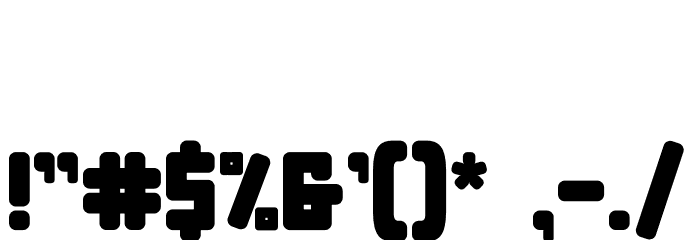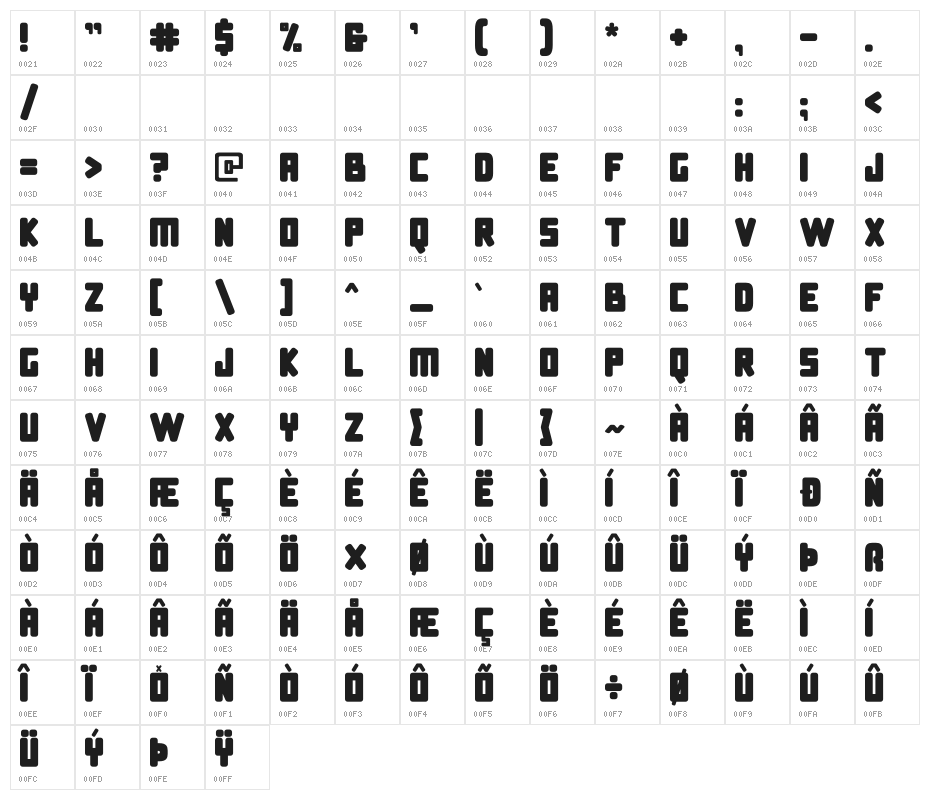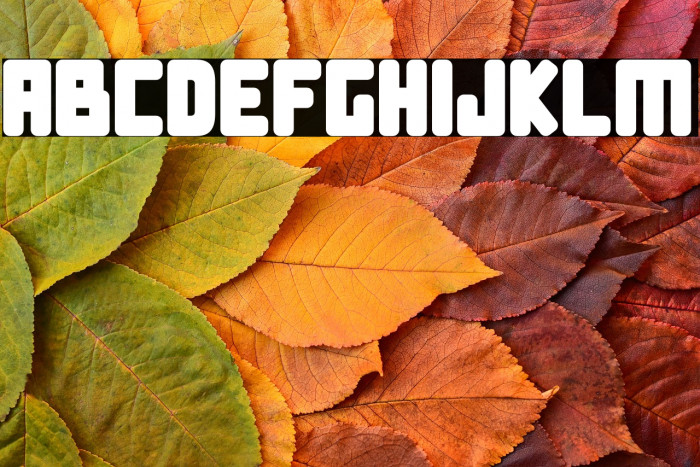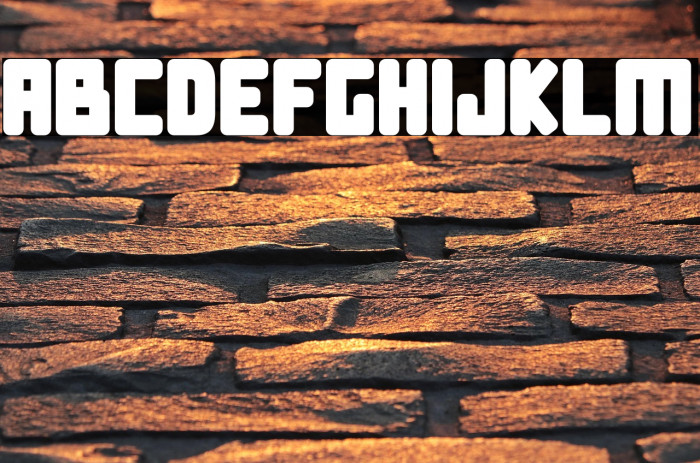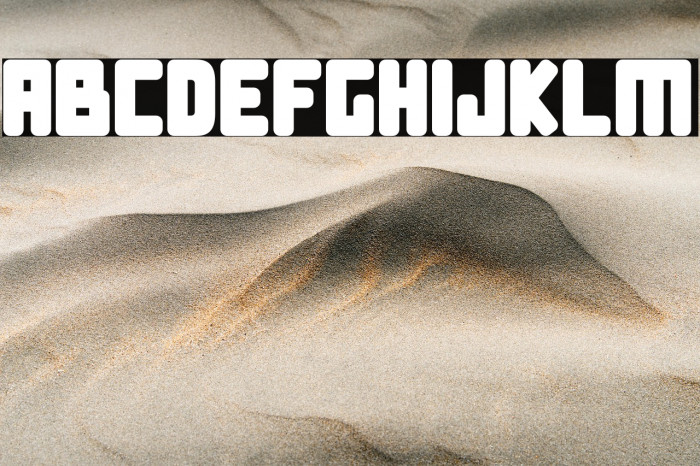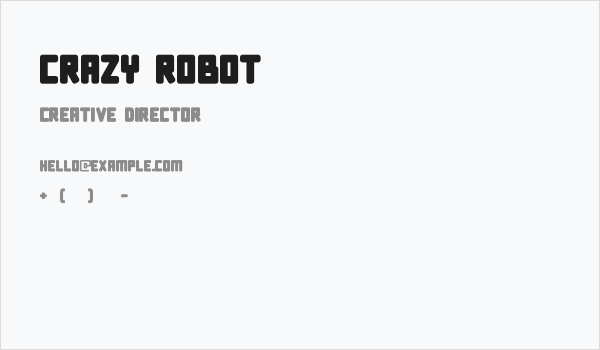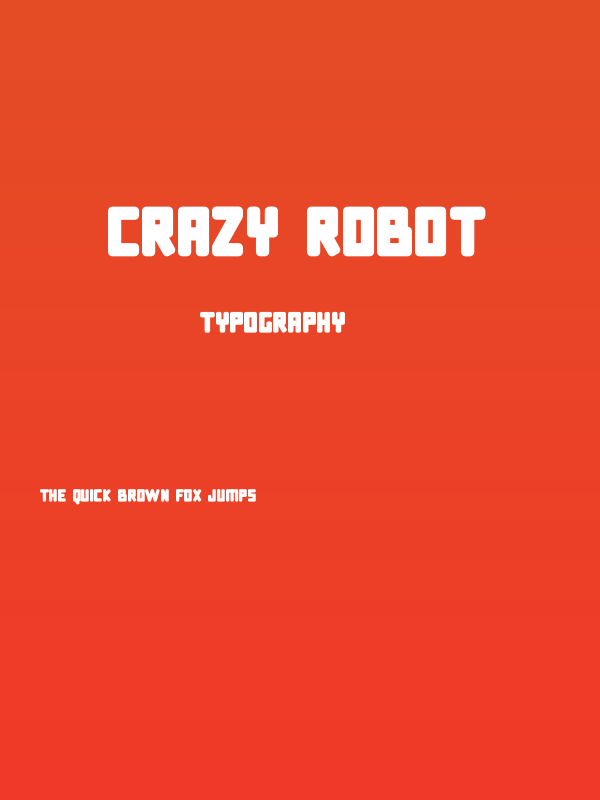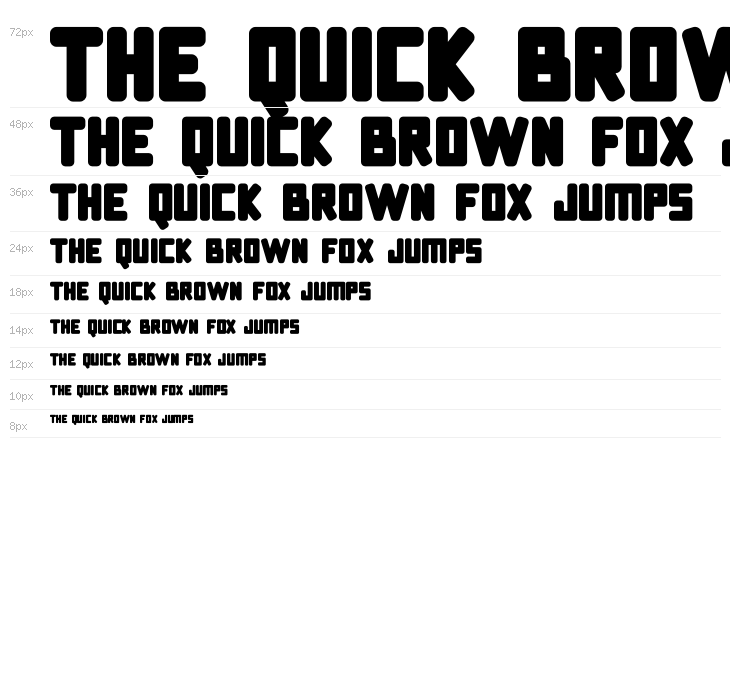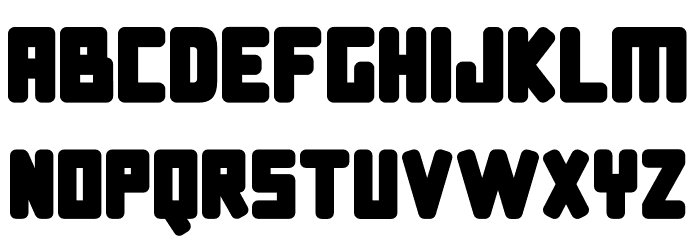
Crazy Robot Font
Crazy Robot Description
This font features a bold and futuristic design with a distinctly robotic aesthetic. The characters are blocky and geometric, with rounded corners that soften the overall appearance. The uppercase and lowercase letters maintain a consistent height, contributing to a uniform look. The numbers and special characters follow the same design principles, ensuring cohesion across all glyphs. The font's thick strokes and minimal contrast make it highly legible, even at smaller sizes. Its unique style is both playful and modern, making it suitable for a variety of creative applications.
| Proposed Projects | Ideal for technology-themed projects, video game titles, sci-fi posters, and branding for tech startups. |